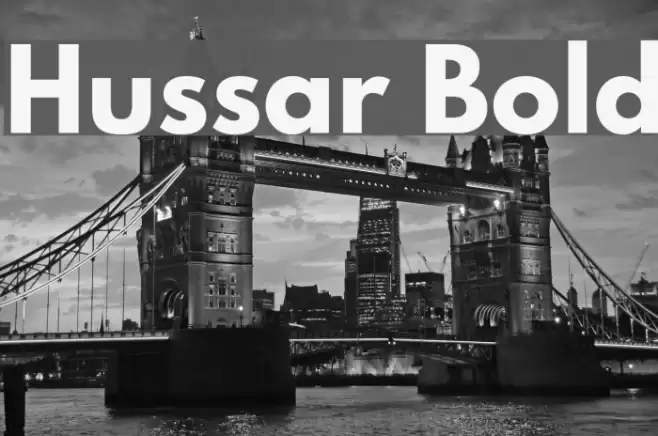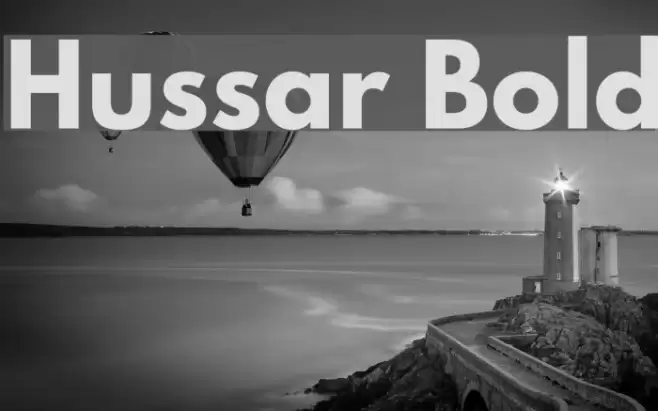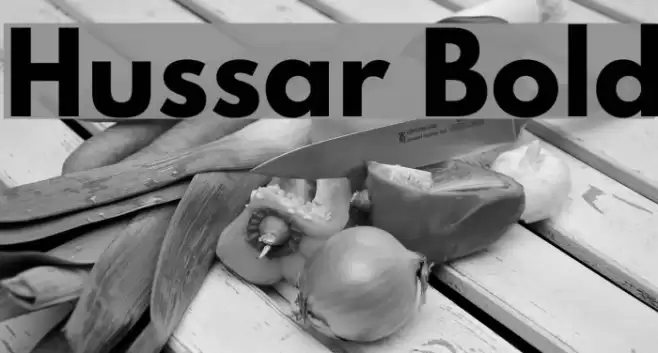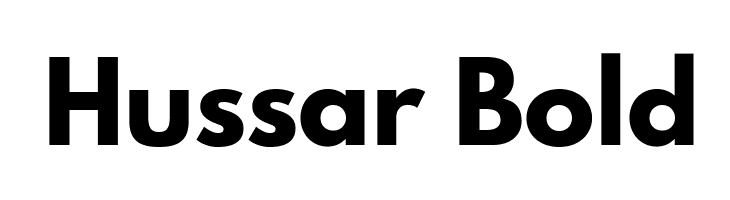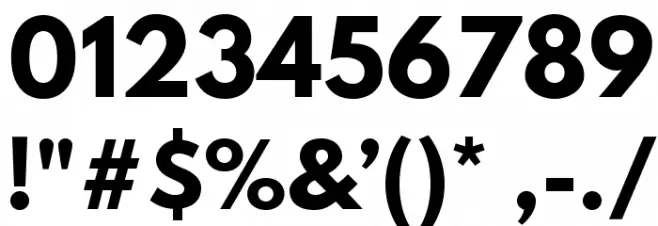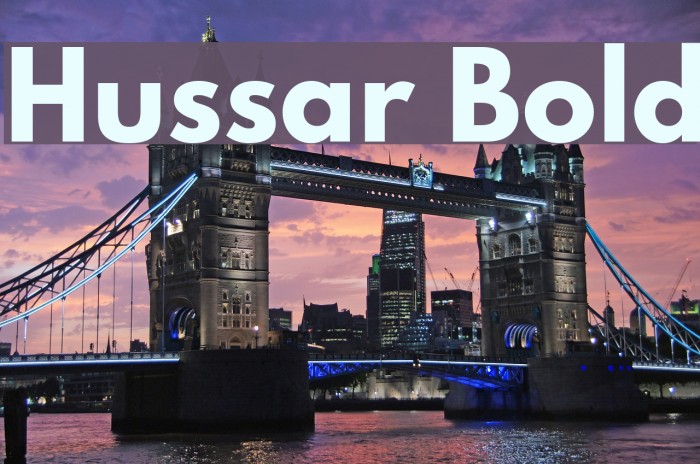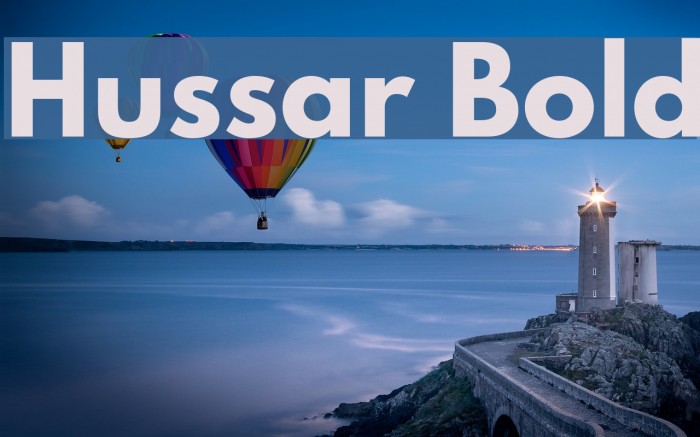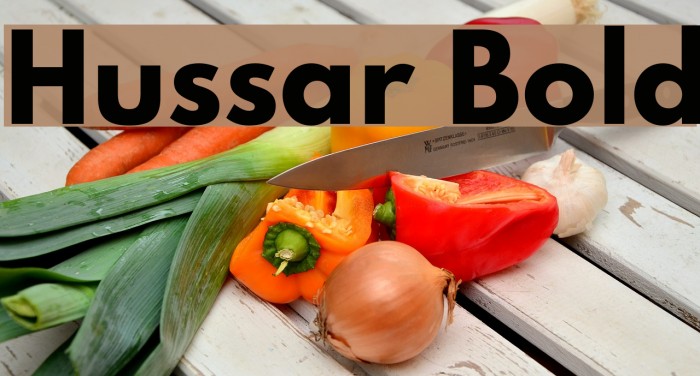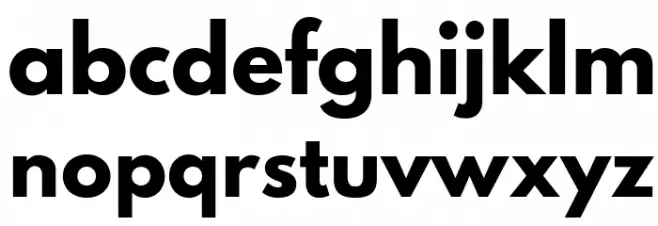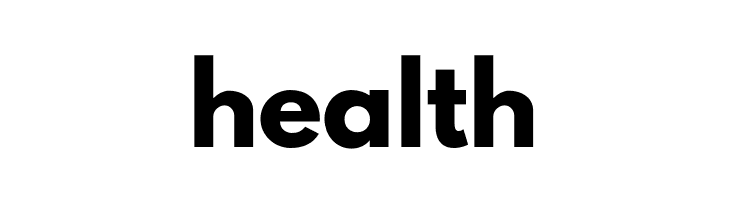
Hussar Bold Font
Hussar Bold Description
This font features a bold and assertive design, characterized by its thick strokes and clean lines. The uppercase letters are uniform in height, providing a strong and cohesive appearance. The lowercase letters maintain a consistent style, with rounded edges that add a touch of softness to the overall boldness. The numerals are equally bold, ensuring readability and impact. Special characters are designed to match the boldness of the letters and numbers, making them stand out effectively. The font's design is modern and versatile, suitable for a variety of applications where clarity and emphasis are needed.
A bold, modern font with thick strokes and clean lines from Sans Serif fonts.
- Proposed Projects: Ideal for headlines, posters, branding, and advertising where boldness and clarity are essential.